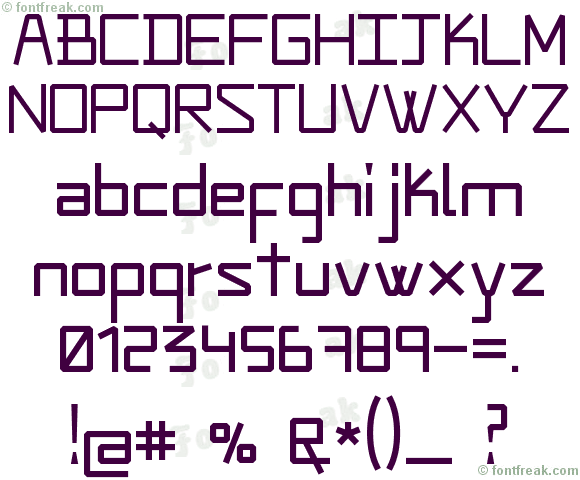
Zeoruz
About Zeoruz
The Zeoruz font, designed by Asley Cruz, is a striking display font that blends modern aesthetics with a unique artistic flair. With its bold, geometric shapes and clean lines, Zeoruz falls into the category of display fonts, making it ideal for attention-grabbing headlines and posters. The stroke weight is consistent throughout, providing a strong visual presence that commands attention. The spacing between characters is carefully balanced, allowing for easy readability while maintaining a contemporary feel.
Zeoruz is characterized by its minimalistic yet distinctive design, making it a versatile choice for various applications. This font works exceptionally well for wedding invitations, where its boldness can convey a sense of elegance and celebration. It is also suitable for movie posters, effectively capturing the viewer's eye with its modern appeal. Restaurant menus can benefit from Zeoruz's striking visual style, adding a touch of sophistication to the dining experience. Additionally, it can be used in branding materials for small businesses, creating a memorable impression that stands out in a crowded marketplace.
The target audience for Zeoruz includes graphic designers seeking unique typefaces for their projects, small business owners looking to enhance their branding, and content creators aiming to elevate their visual content. The font’s versatility makes it an essential addition to any designer's toolkit.
What sets the Zeoruz font apart is its ability to merge simplicity with boldness, making it a powerful choice for anyone looking to make a statement. Its contemporary design, combined with the ease of a Zeoruz font free download, ensures that this font is not just a tool but an asset for creative expression. Whether for digital or print, Zeoruz provides an opportunity to elevate your design projects with style and confidence.